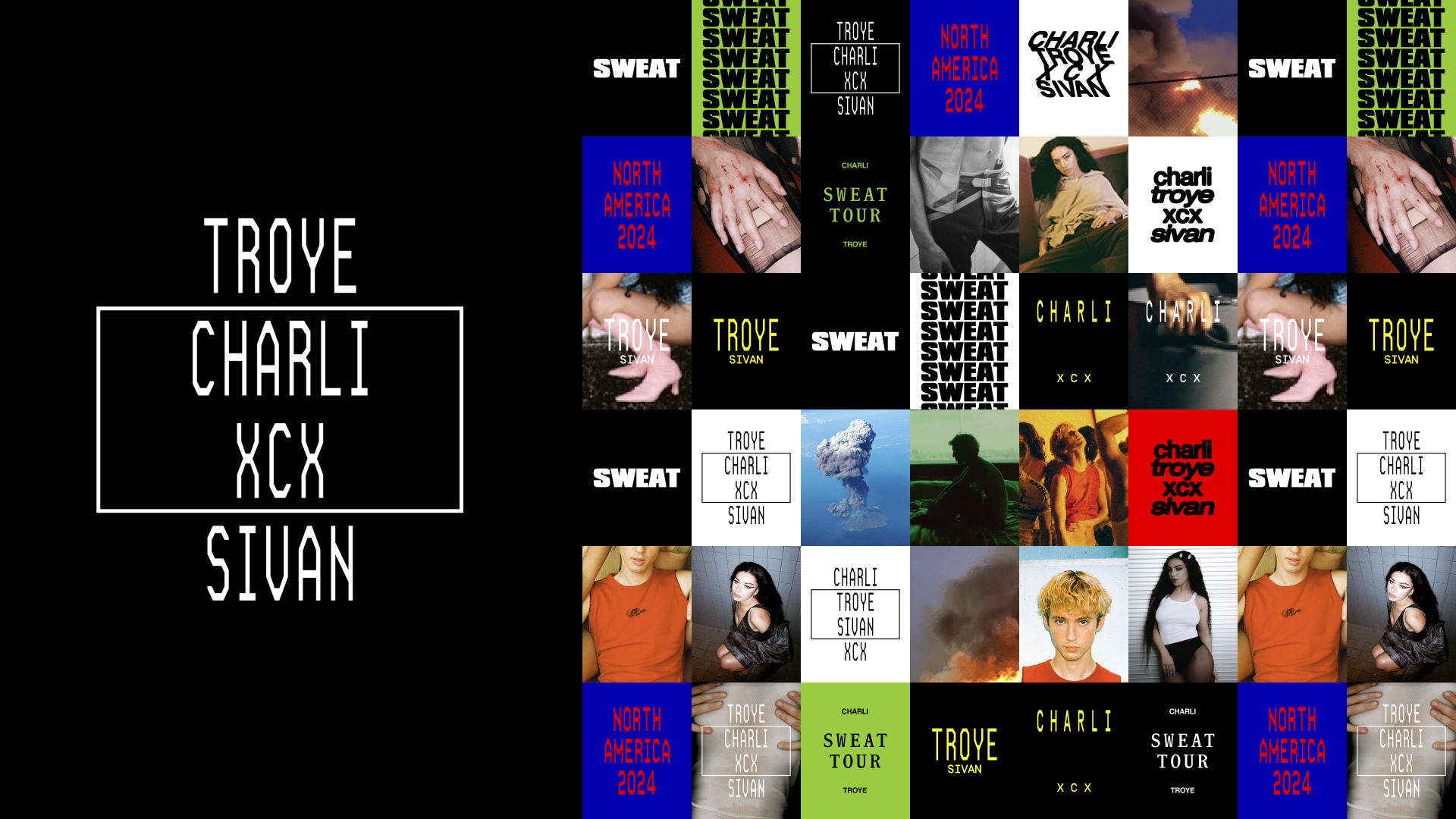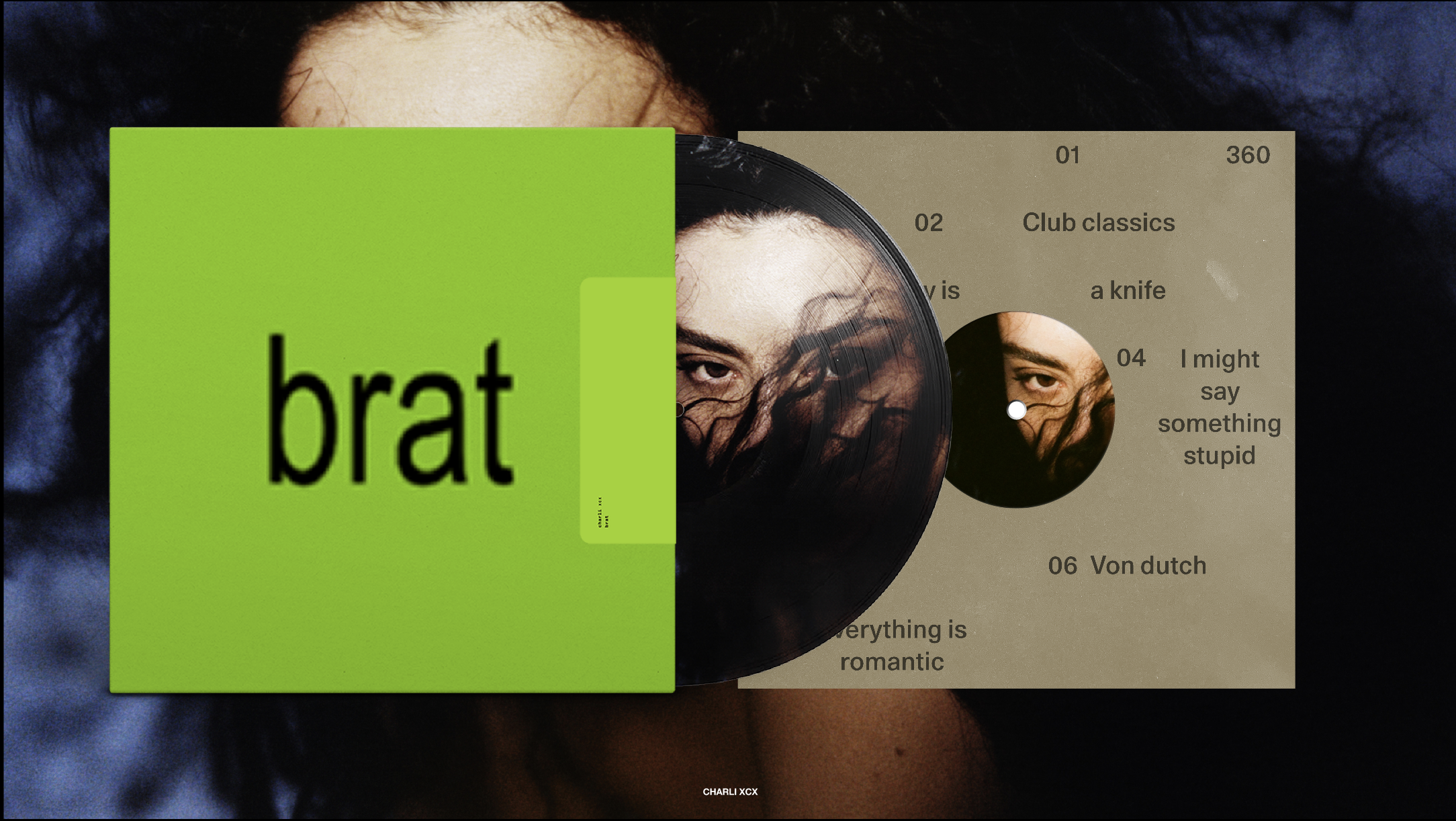
It is rare for designers to achieve such global recognition that they transcend their original function, leading to a celebration of form that becomes a pop culture phenomenon.
You’ve witnessed it. It’s everywhere.
TDC presents an in-person event with Brent David Freaney, founder of Special Offer, Inc., where he’ll discuss type design, large-scale systems, his work on Charli XCX’s album “brat,” and what it truly means to be a professional designer, followed by a live Q&A.
SPECIAL OFFER, Inc. is an award—winning creative tech company committed to the growth of subculture through design.
Charli XCX - 'brat' + Charli XCX Troy Sivan SWEAT Tour
Joyce has been a finalist at SXSW Film Awards three times and her work has been recognized by The One Club, The ADC, The ADCC and the Australian Production Design Guild, among others. She was named one of “10 Women of Title Design” by Art of the Title in 2018 and was recently a Young Gun 17 winner.
- State, the innovative variable typeface project created by MICA student Potch Auacherdkul, selected by Zipeng Zhu